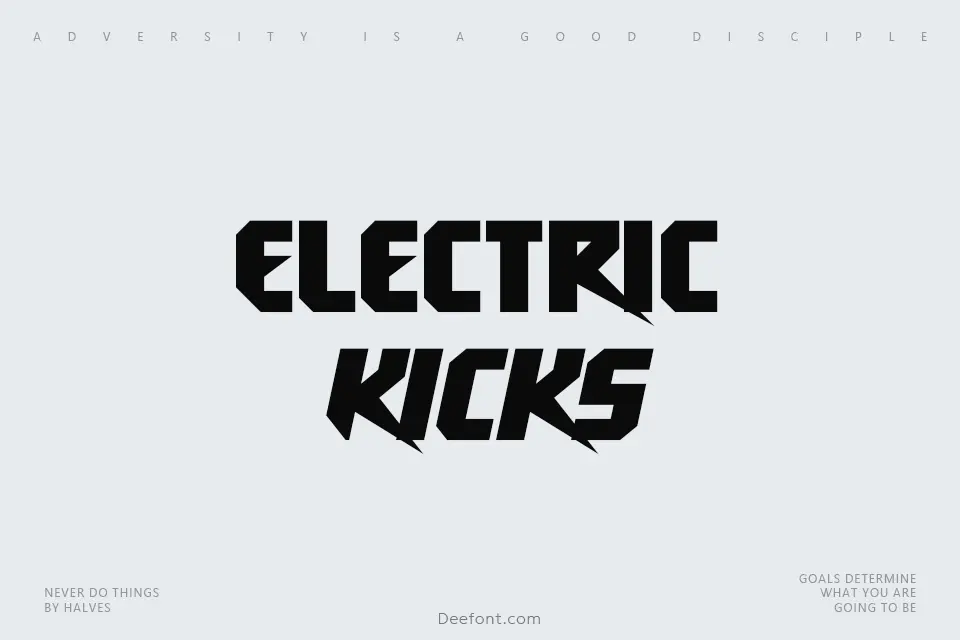
Electric Kicks Font
Electric Kicks is a bold, futuristic display font designed by Darrell Flood, featuring sharp angular lines and a dynamic geometric aesthetic. Its spiky, energetic style makes it ideal for sci-fi themes, gaming interfaces, tech-related branding, and edgy editorial designs. The font’s aggressive character shapes include angular terminals and stylized geometric forms, giving it a modern, high-impact visual presence.